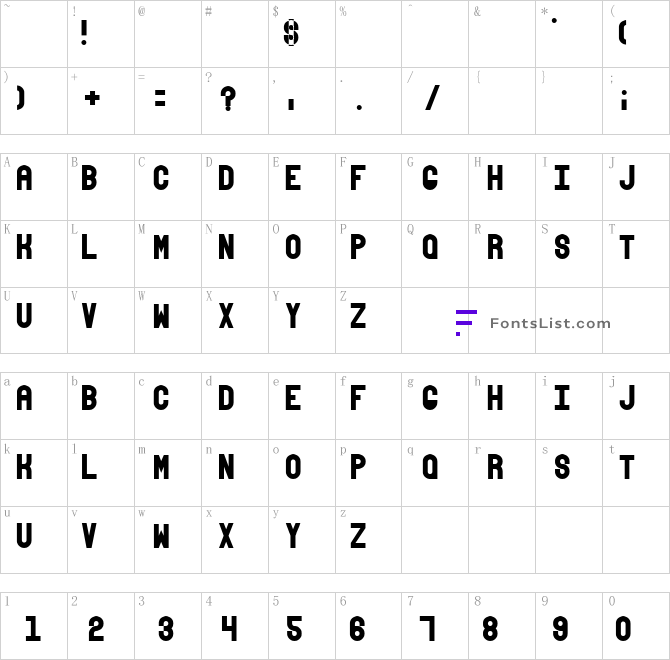
absender.ttf is a very beautiful artistic font, absender.ttf is widely used in the design and printing of various books and pictures,absender.ttf has a strong visual impact,absender.ttf is a commonly used font in newspapers, magazines and books, and is used in posters, e-commerce Poster design, store design, logo design, font design and other fields.absender.